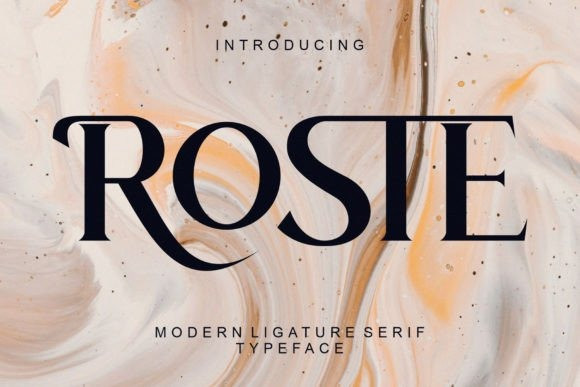
Roste Font
Roste Font is an elegant and classy serif typeface. This font is both modern and nostalgic and works great for logos, magazines, and social media. Already matched up and ready to be used together for your next design! It is also PUA encoded which means you can access all the glyphs and ligatures with ease!